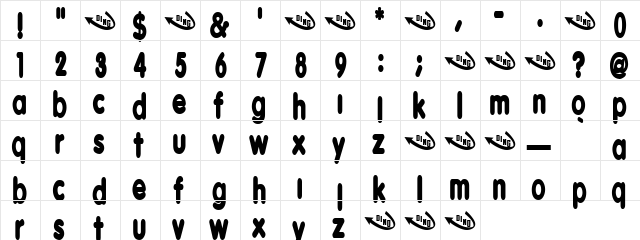
BrokenPromise Regular
Design Context for BrokenPromise Typeface
BrokenPromise takes a measured approach to typography — its balanced proportions and neutral character make it a reliable workhorse for both digital and print work.